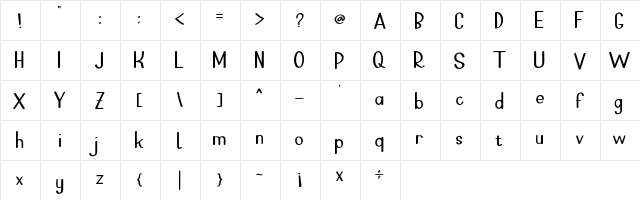
Little Pat Regular
| Designer | Sawarna 2019 |
Design Context for Little Pat Typeface
Little Pat is a composed and adaptable typeface that performs quietly and consistently across a wide range of design contexts.